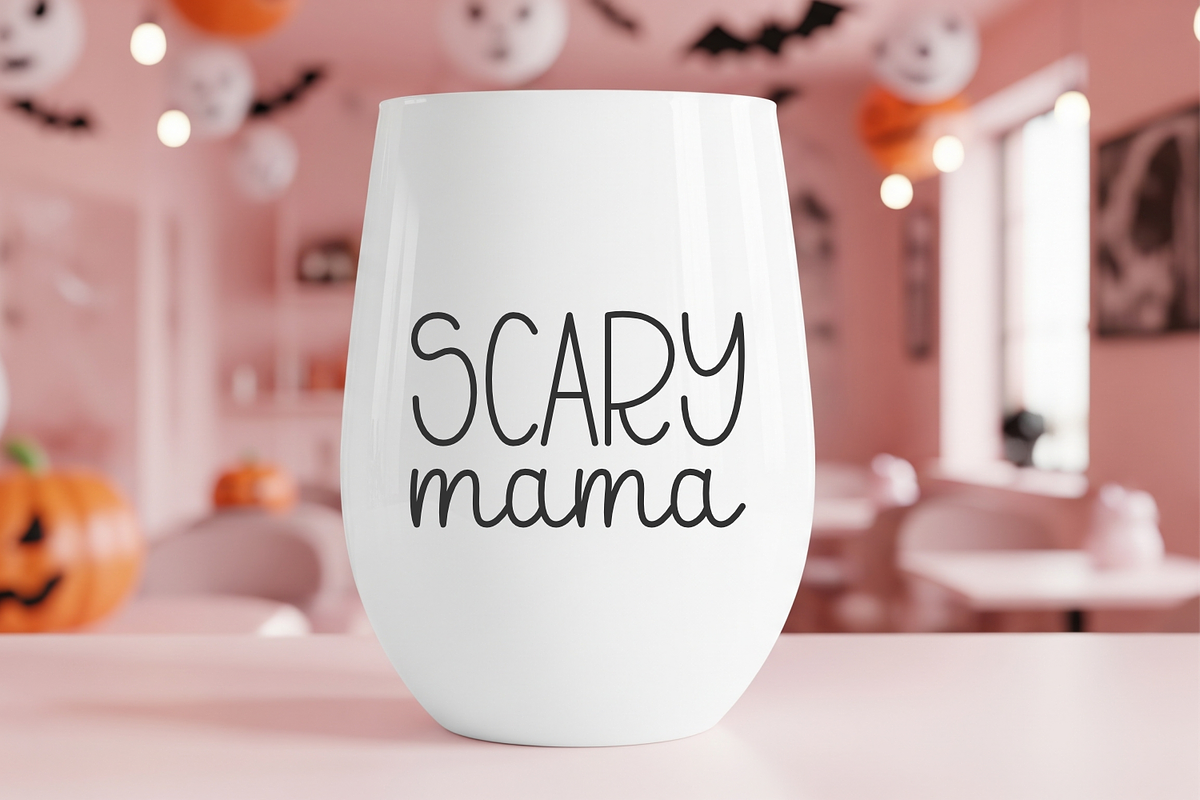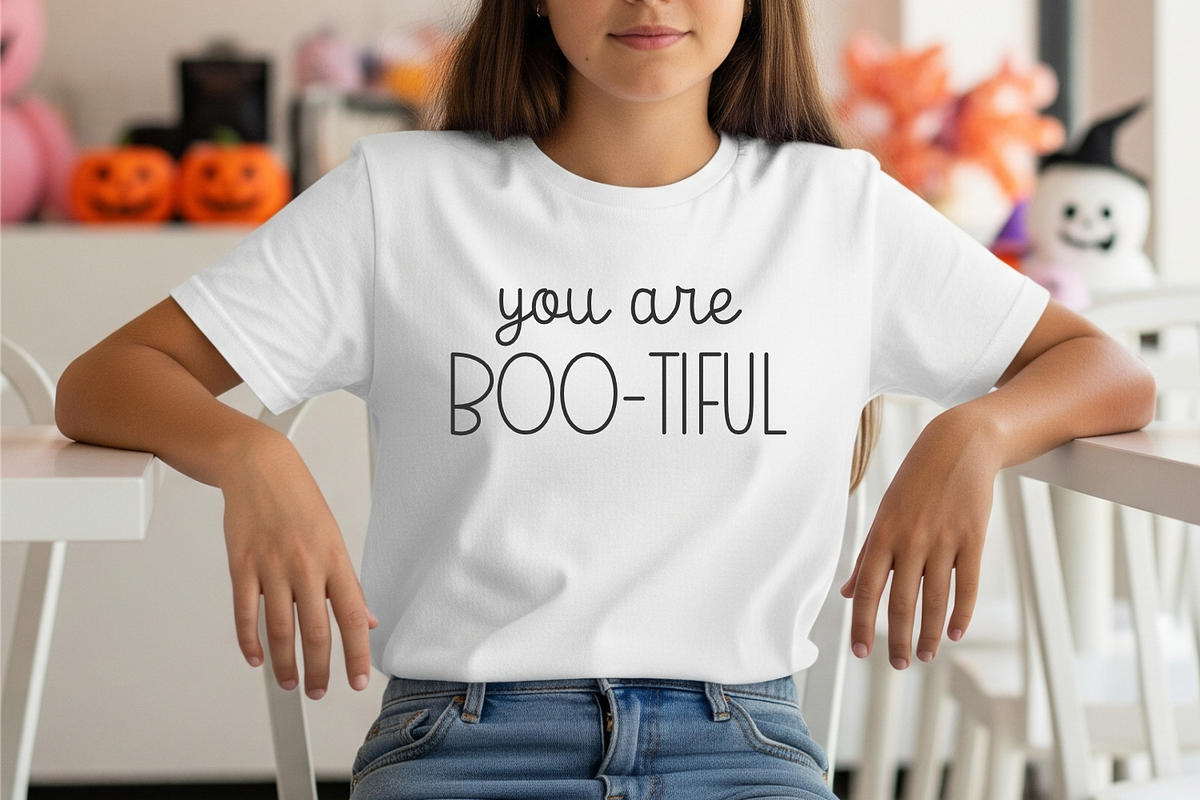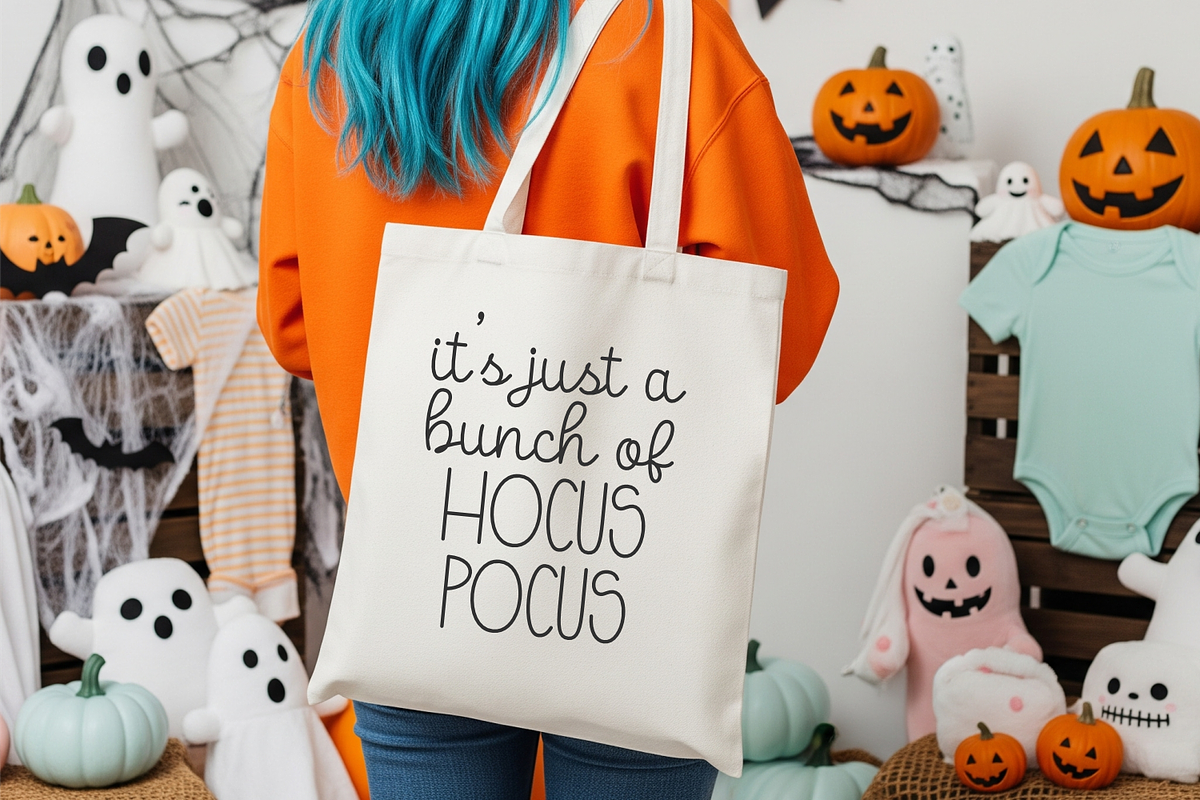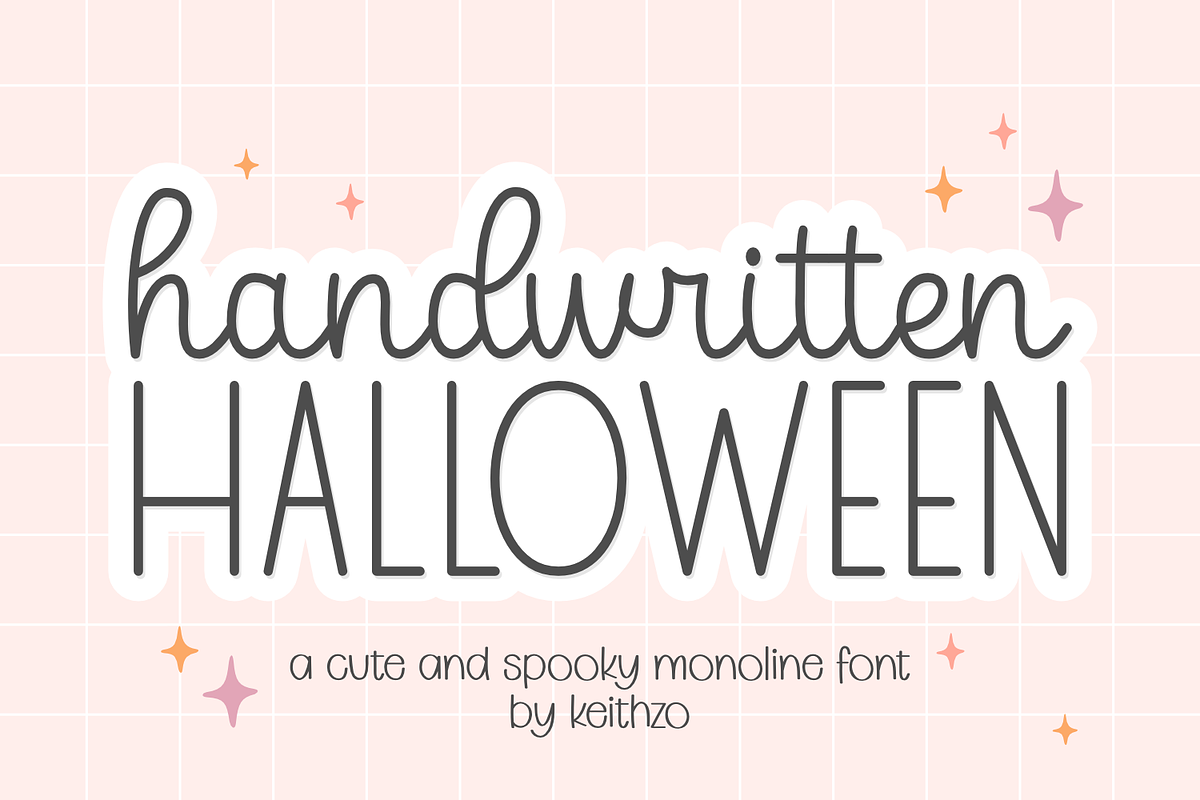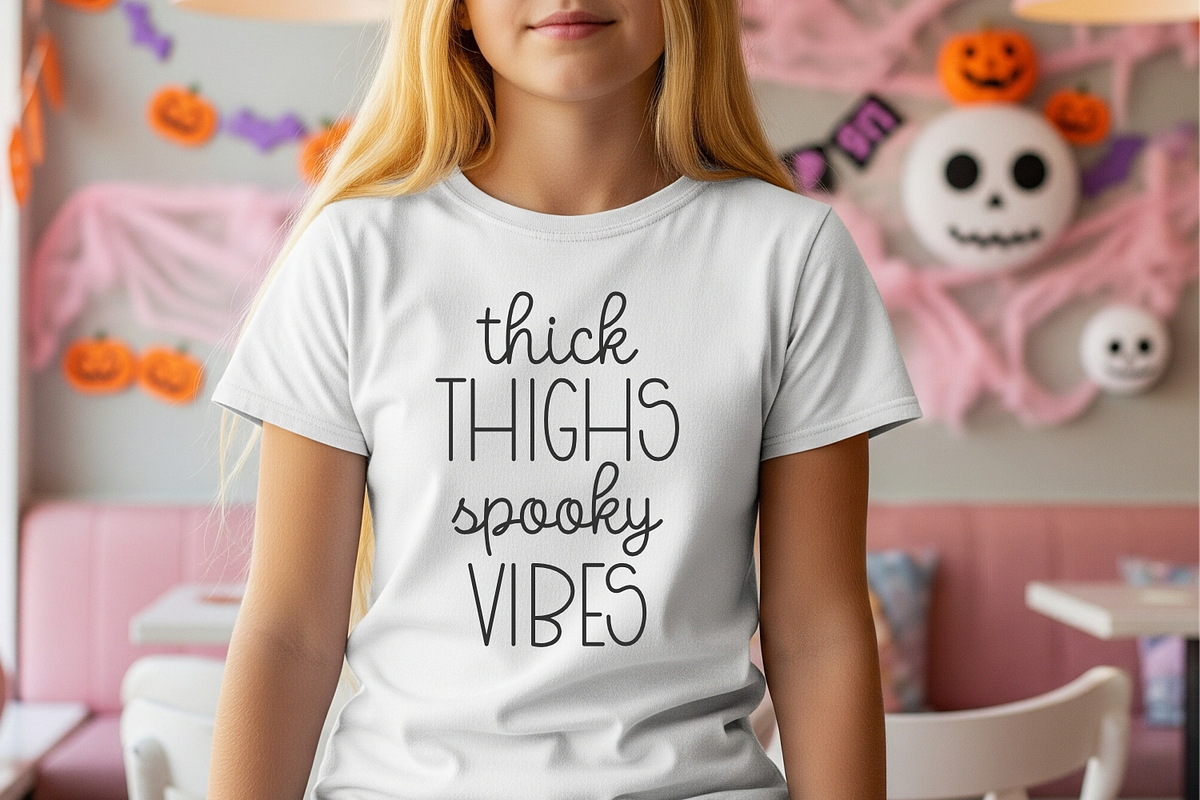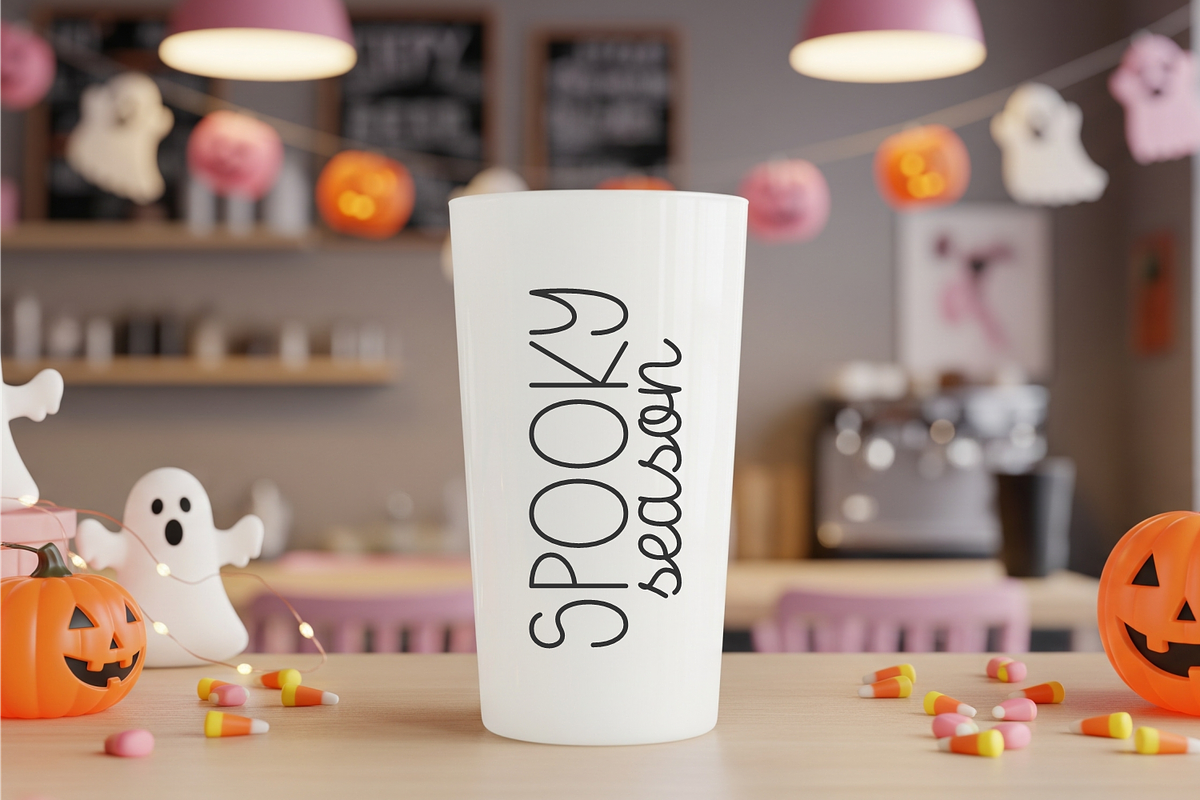
Handwritten Halloween
Introducing Handwritten Halloween, a charming monoline script designed with precision and a dash of spookiness. Its refined and smooth curves align it perfectly with a playful Halloween ambiance. Ideal for sprucing up t-shirts, tote bags, mugs, tumblers, and Halloween posters; it’s also a hit for crafting those spine-chilling party invitations. Play around with upper and lower-case letters and discover the perfect combination to bring your specter-spangled designs to life. With Handwritten Halloween, you’re in for some bewitching design magic.